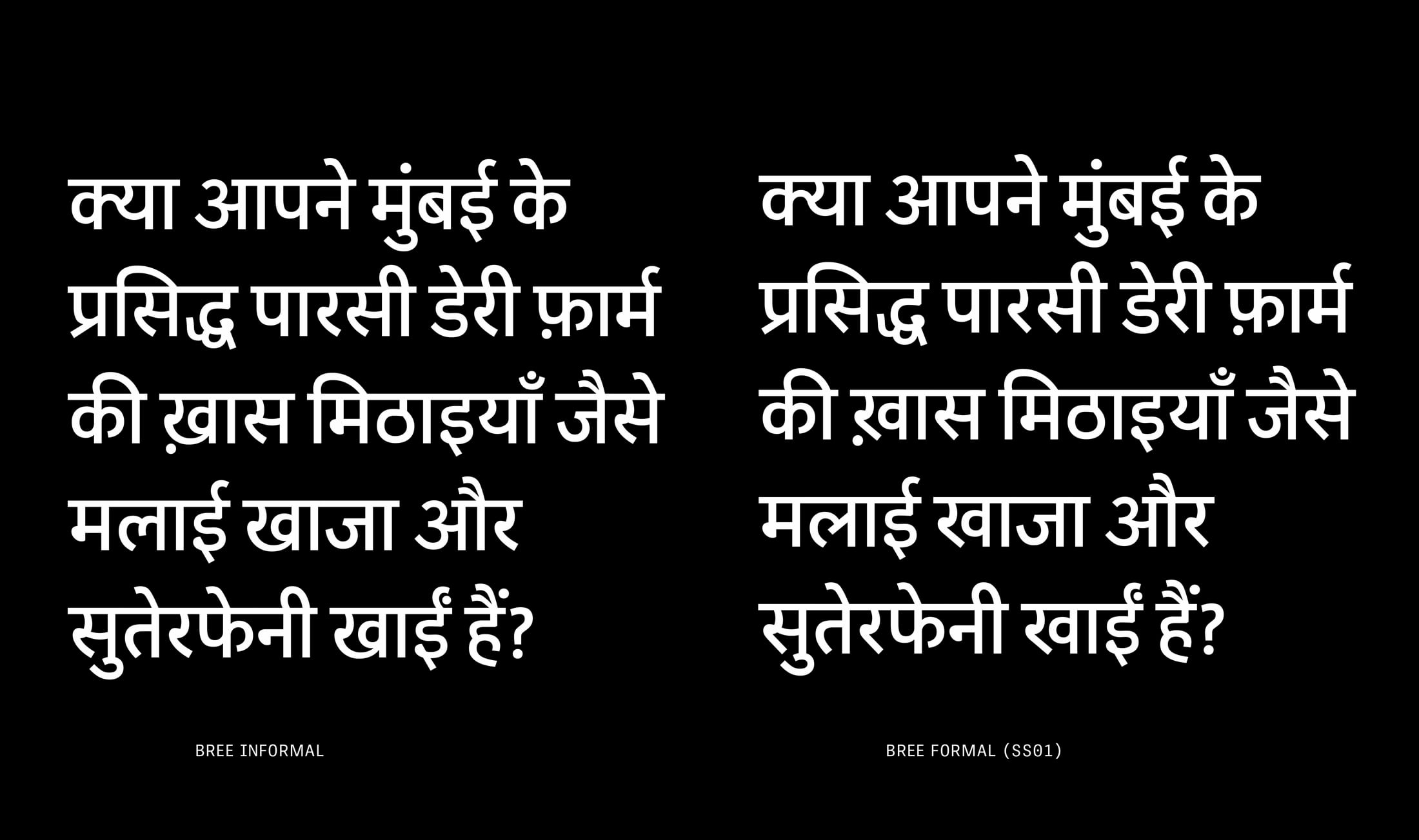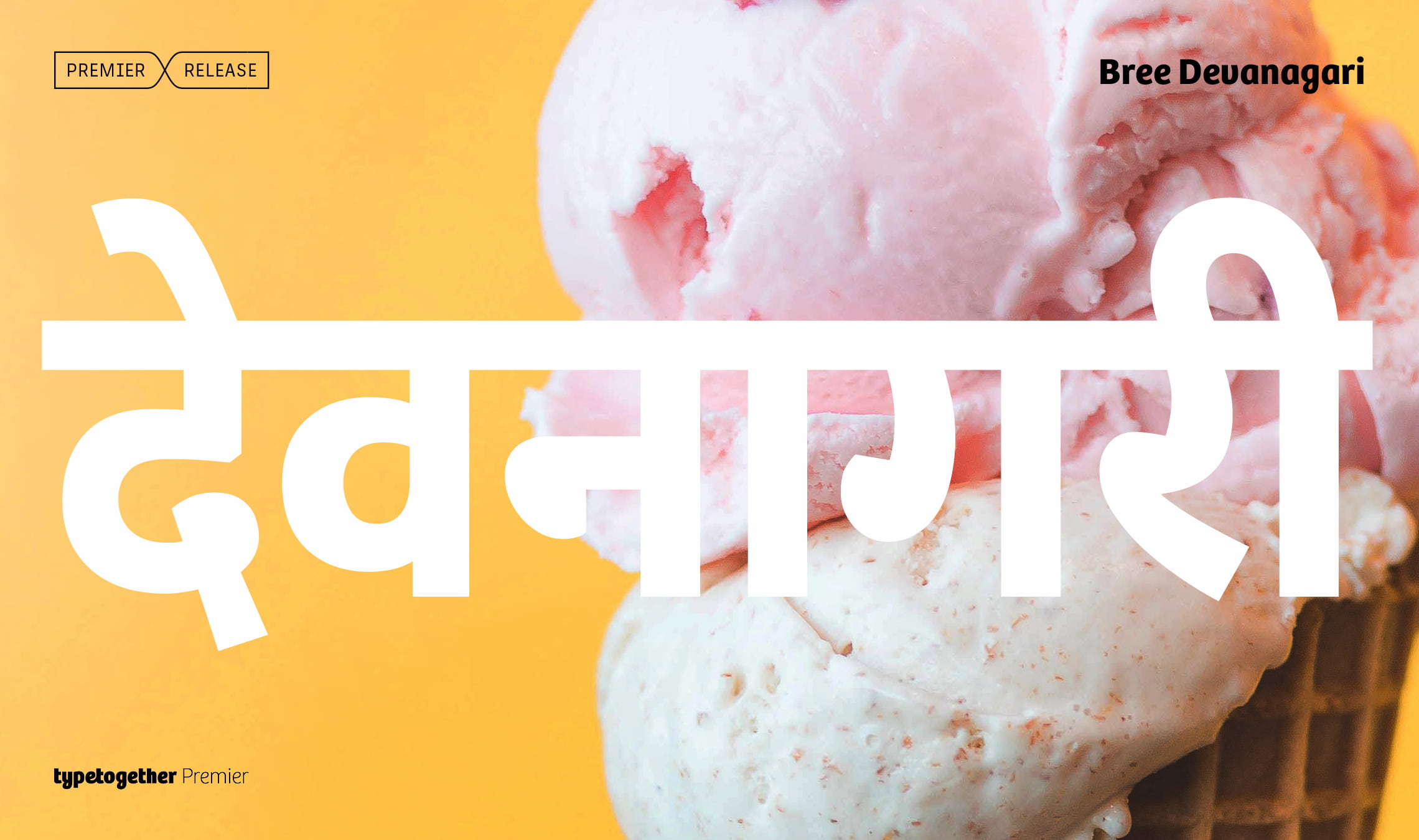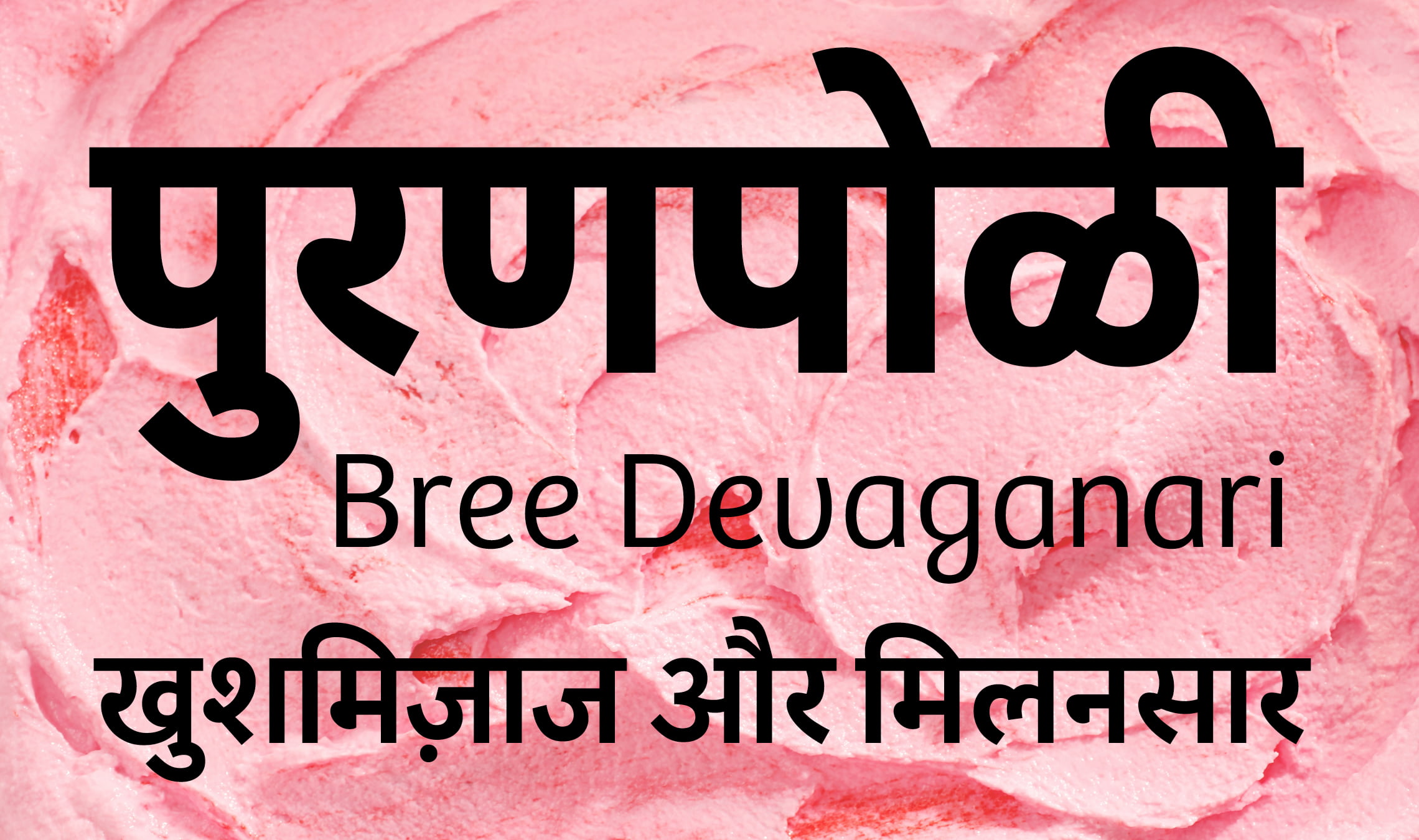
Bree Devanagari pre-release fonts now on TypeTogether Premier
TypeTogether is proud to announce the release of Bree Devanagari, a friendly Devanagari voice with a poised rhythm and a big-hearted extrabold. Bree Devanagari balances an attention to detail with an even rhythm and calligraphic reminiscences to create a design that is warm and affable while being functional in longer texts. What’s the catch? Bree Devanagari is currently only available on TypeTogether Premier.